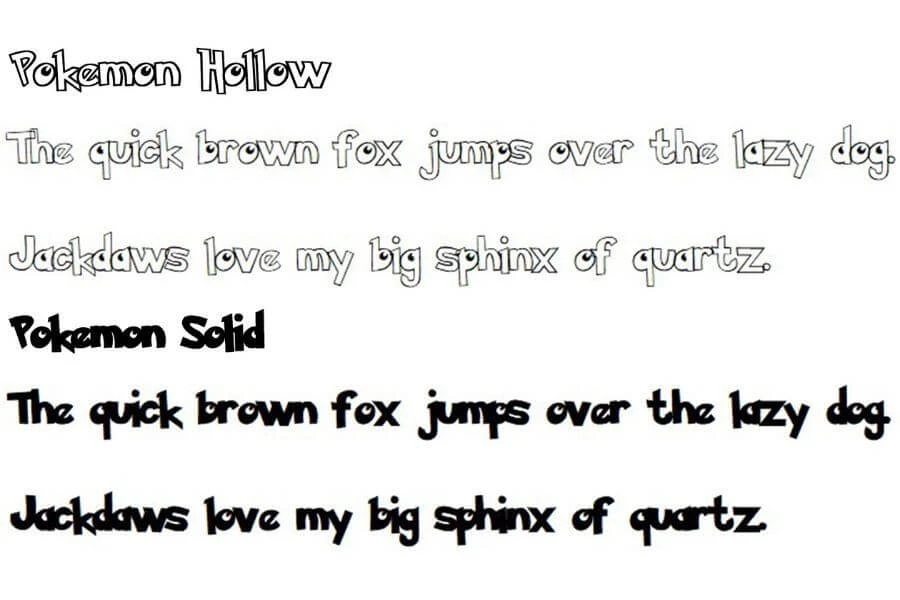
Font Family Name | Pokemon (Solid and Hollow) |
Classification | Fancy and Cartoon fonts |
Desginer | FontMonger |
About the Font
The Pokémon Animation logo was custom-designed based on our observations. So, it is very hard to find a proper, similar font for it. But, later, due to the popularity of the franchise, many designers and fans tried to design the logo font.
So, what font is in Pokemon logos?
We found a font that closely resembles the logo; the font is also called “Pokémon.” This Pokémon is classified under fancy fonts.” Although the creator of this font is anonymous, if you check the font’s unique identifier code, then the designer is “FontMonger.” We appreciate this excellent font work. It was published in 2007. The font has two styles available.
- Pokemon Solid
- Pokemon Hollow
Note: There is another font called “Pocket Monk,” which was published in 2016, and they tried to make their version, which is also very similar to the Pokémon font.
Ans: Pokemon font is a Fancy animated film font with 2 styles.
Ans: Yes, It has. The closest alternative in Google fonts to Pokemon is Miltonian.